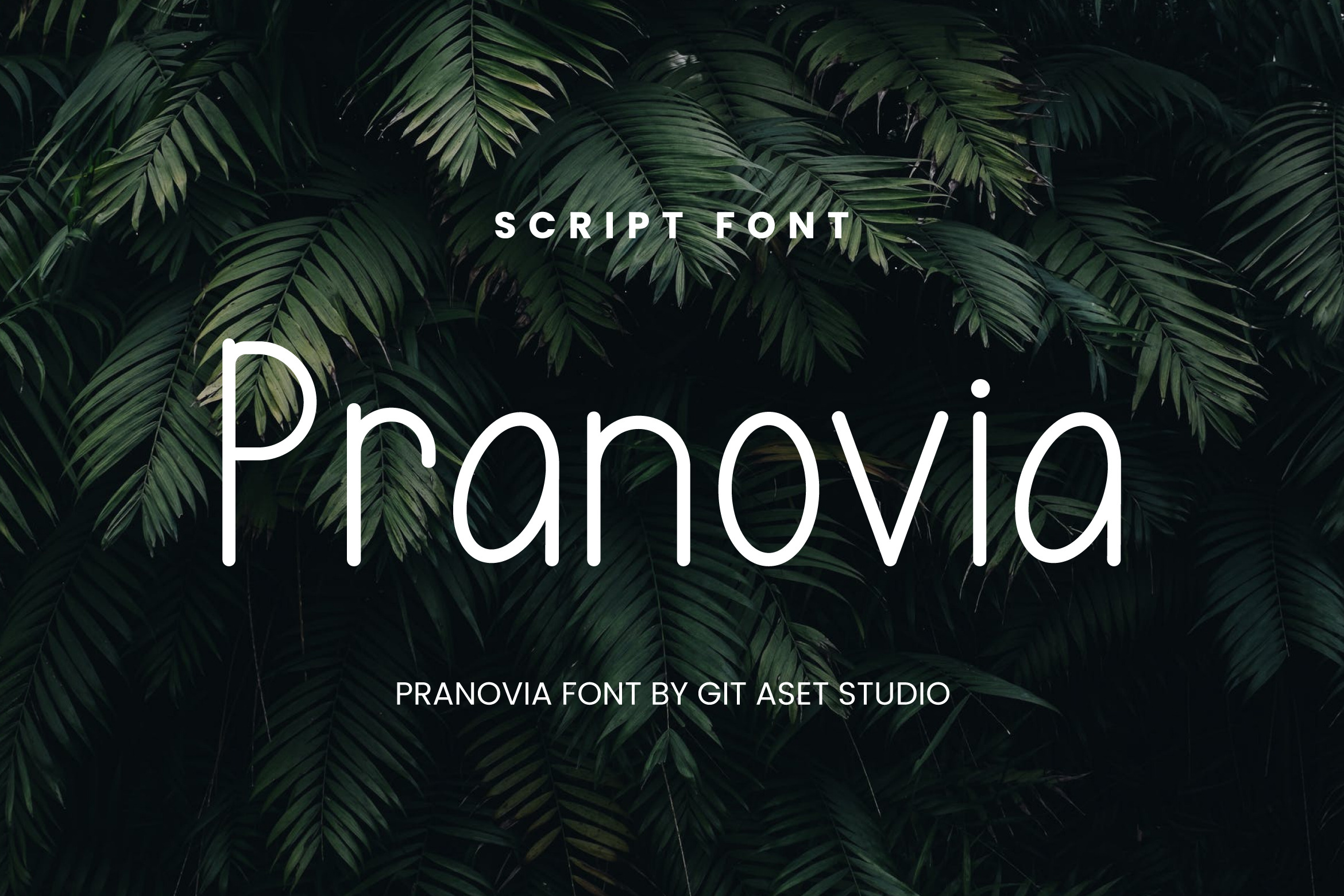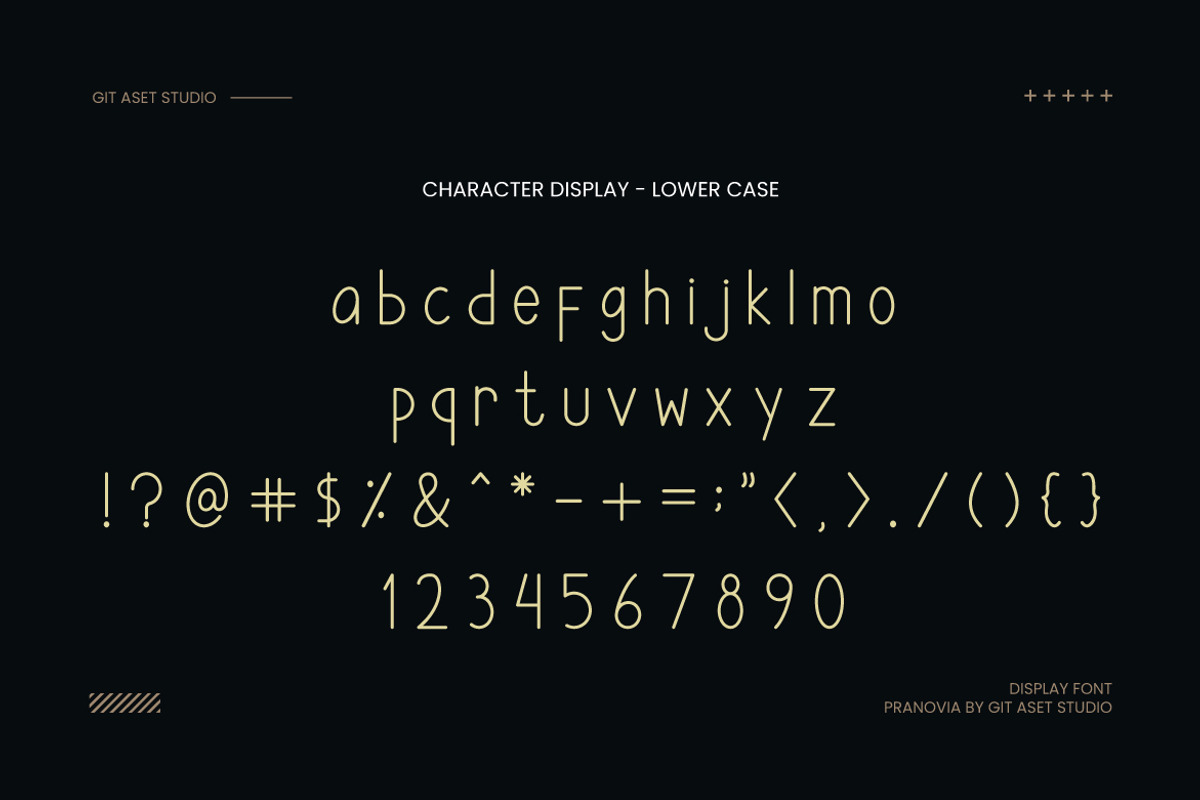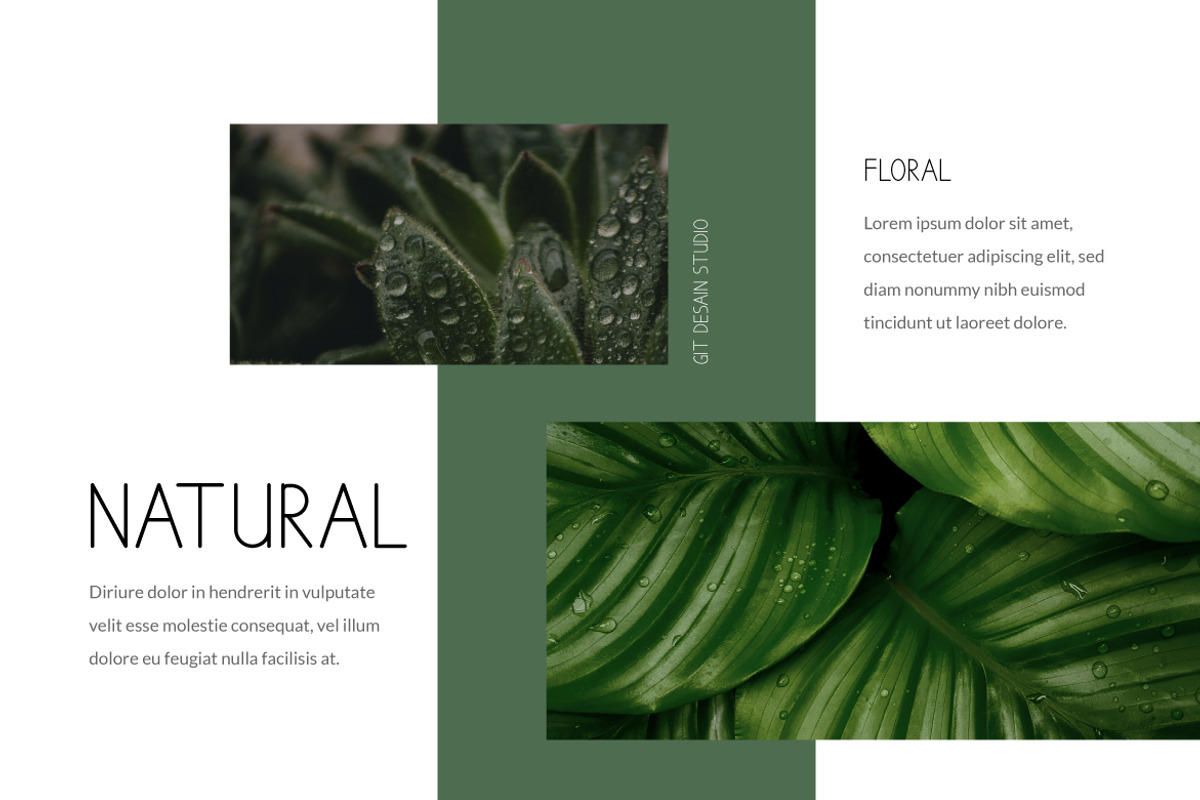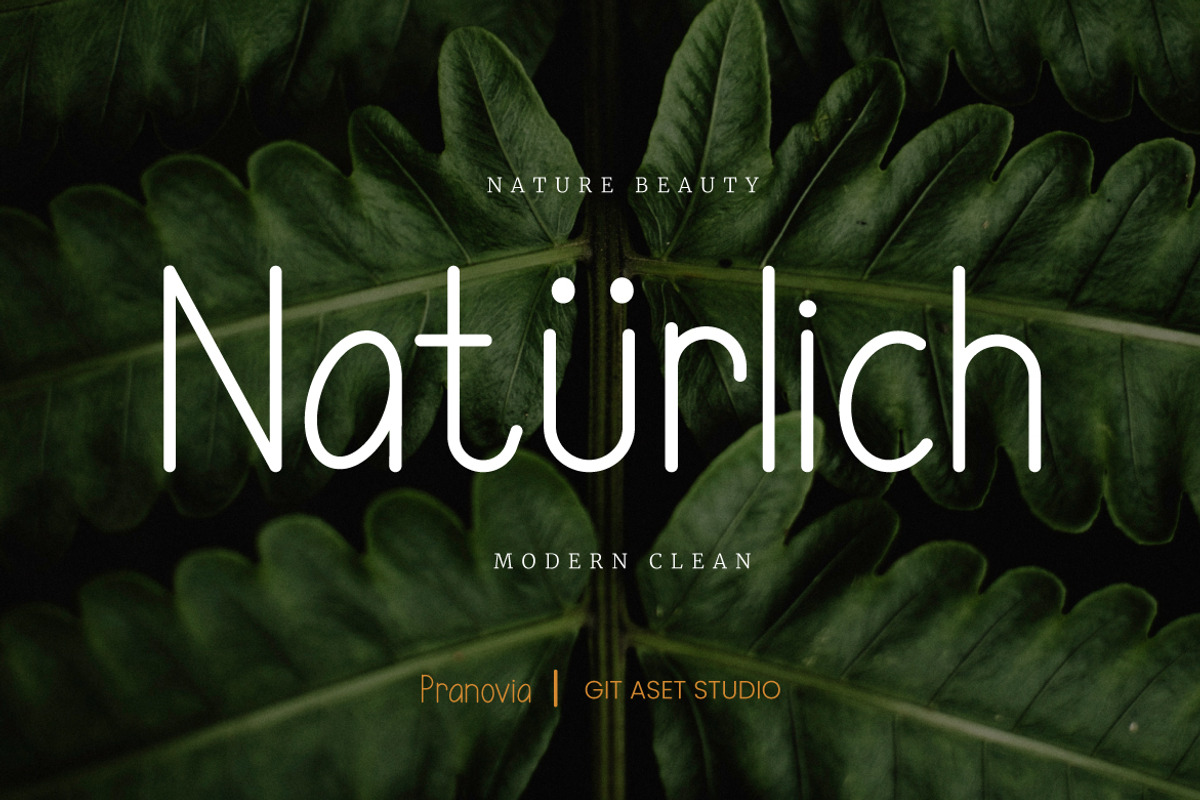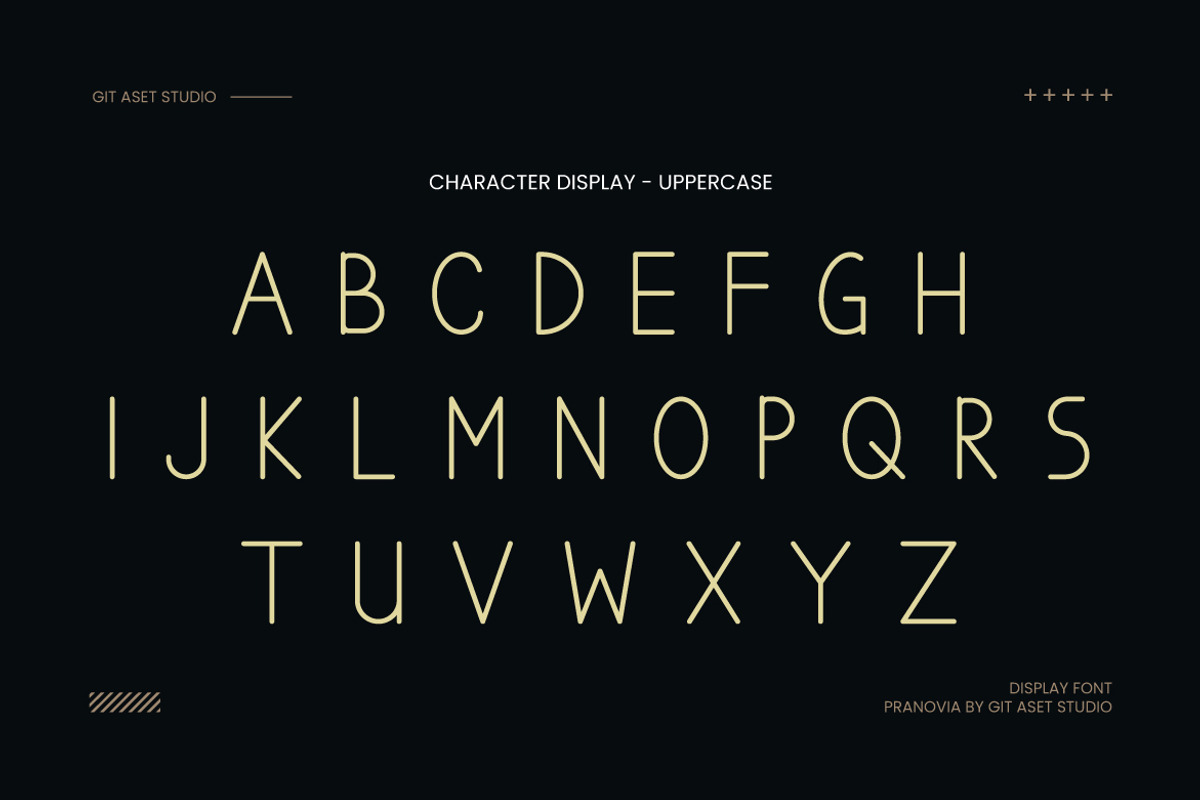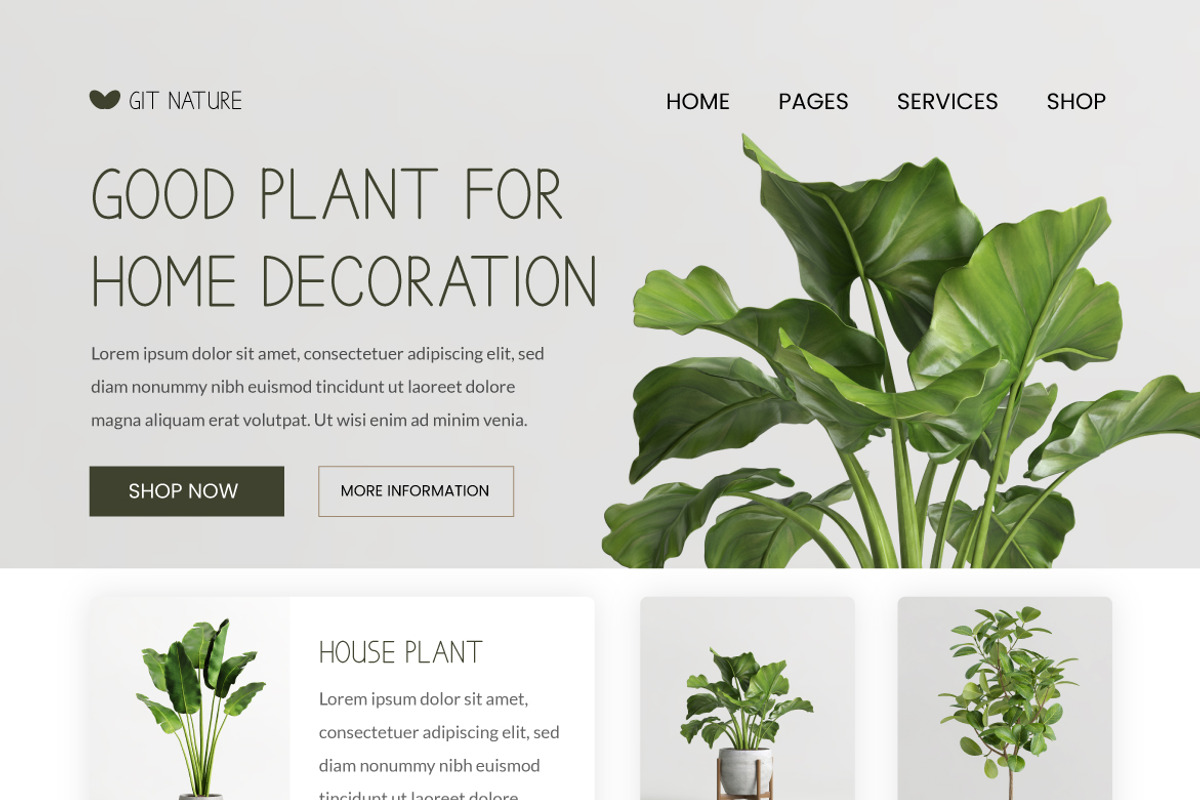
Pranovia Display Typeface
With this font, your designs will exude sophistication and modernity, making it ideal for branding, advertising, and editorial work.